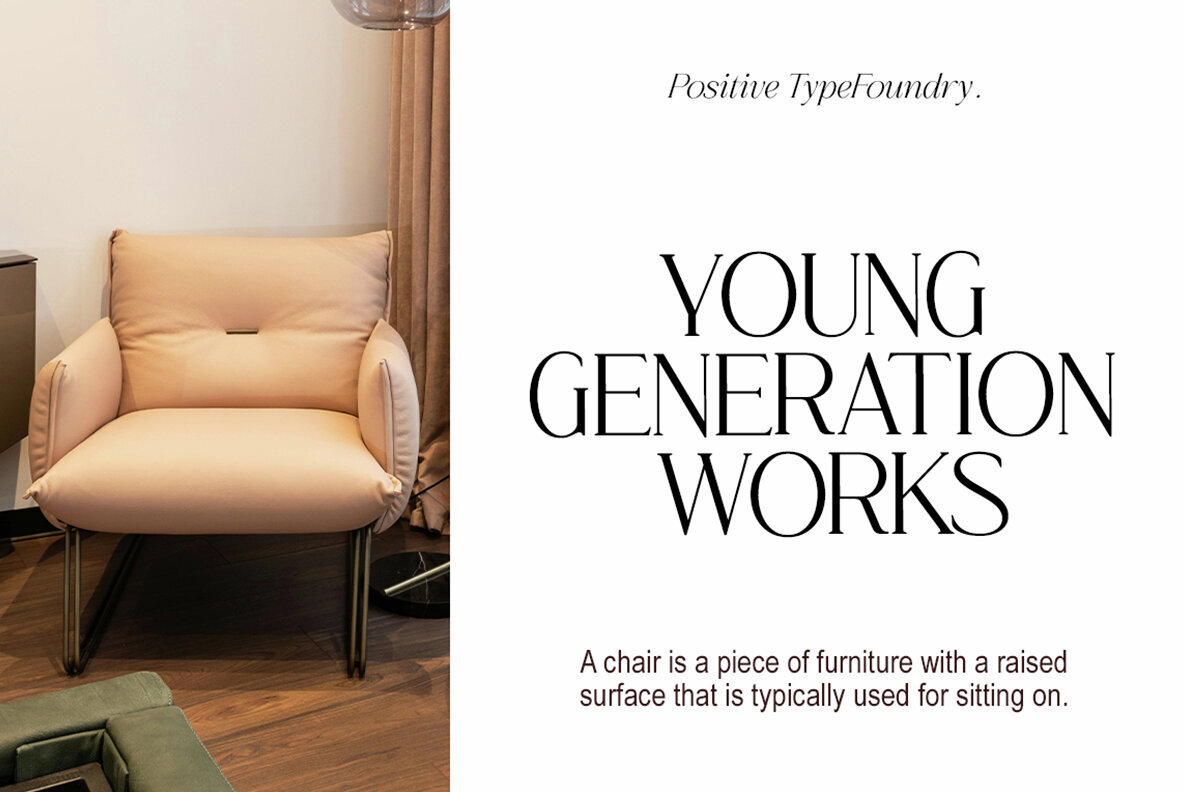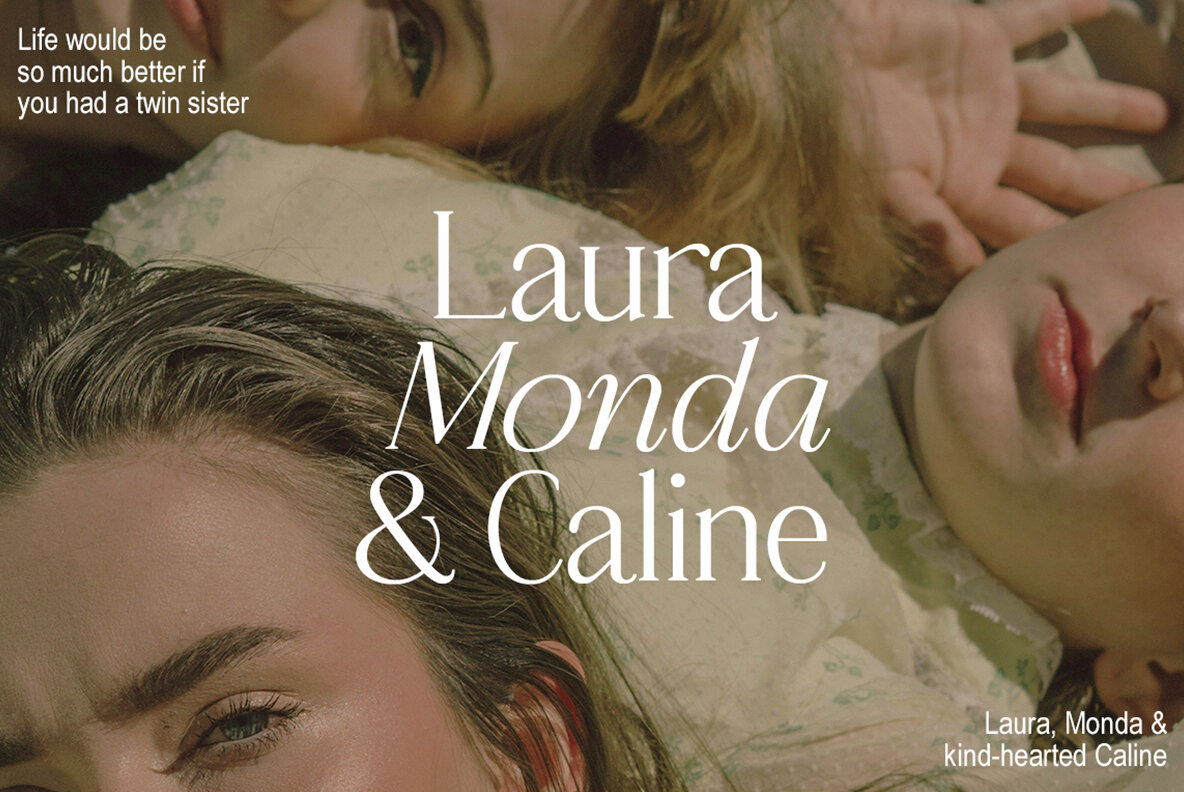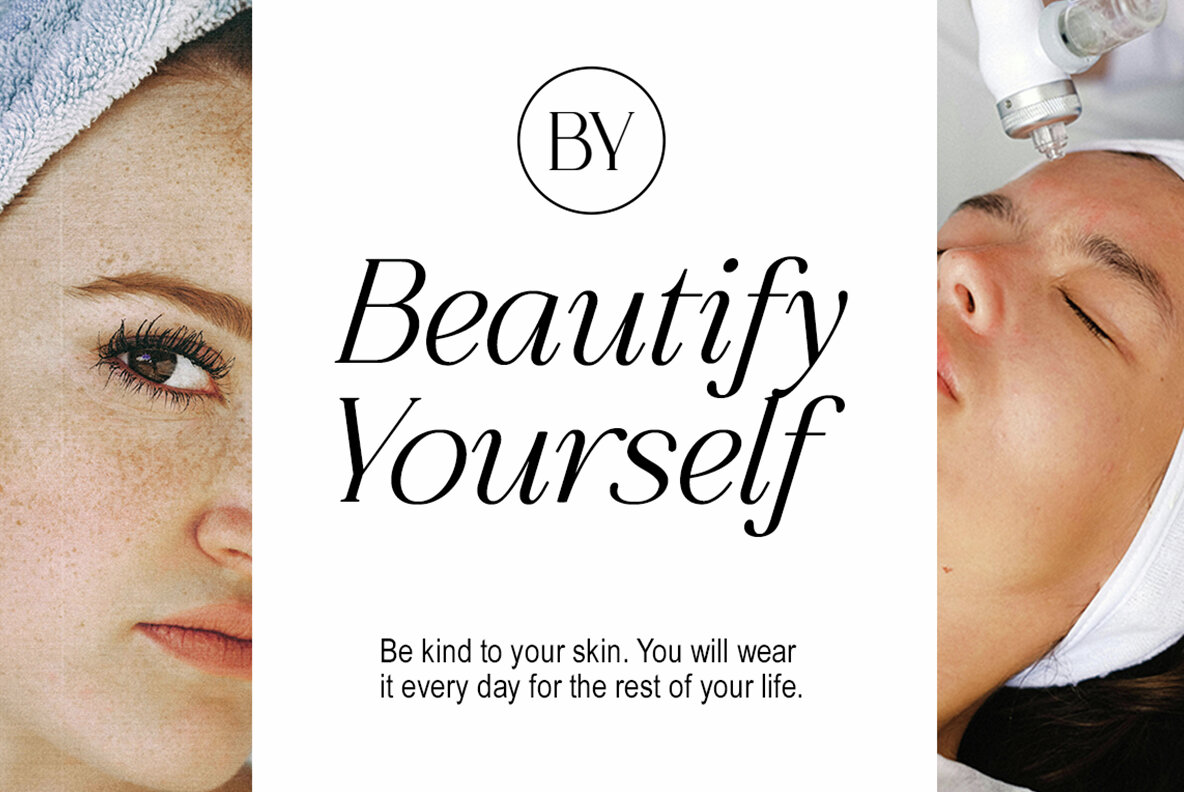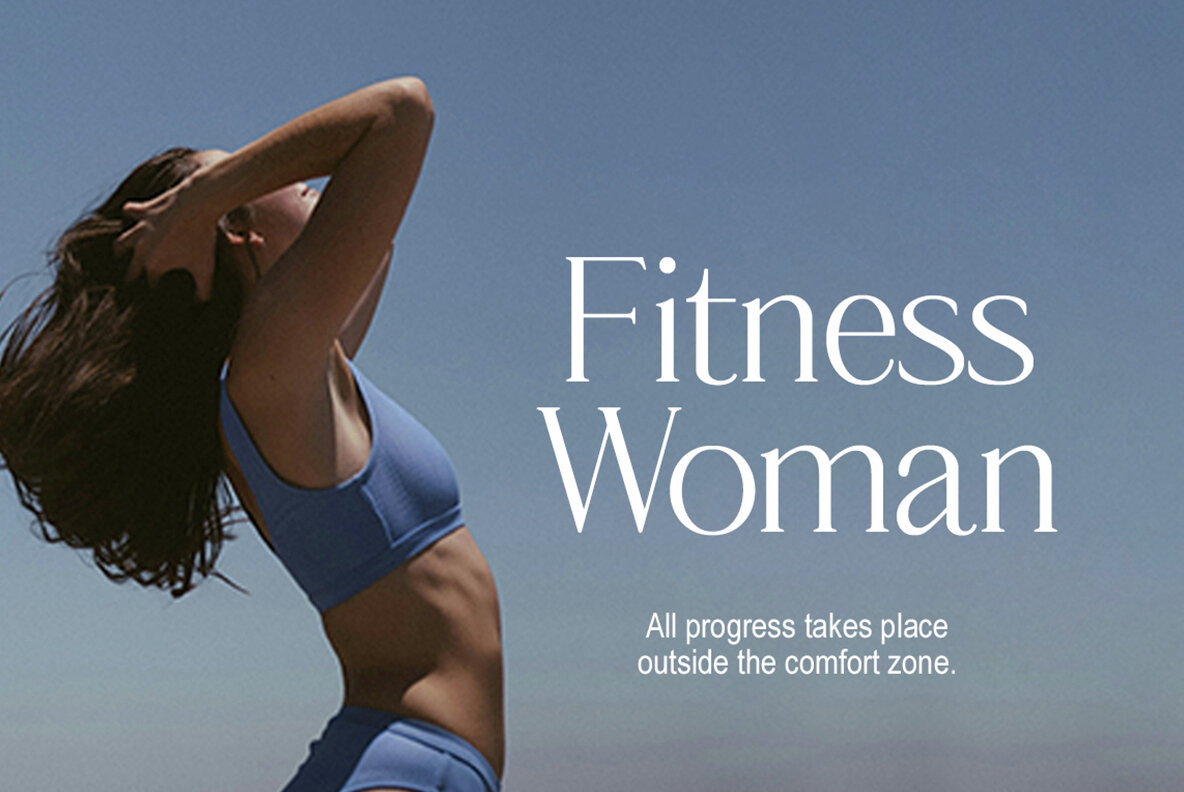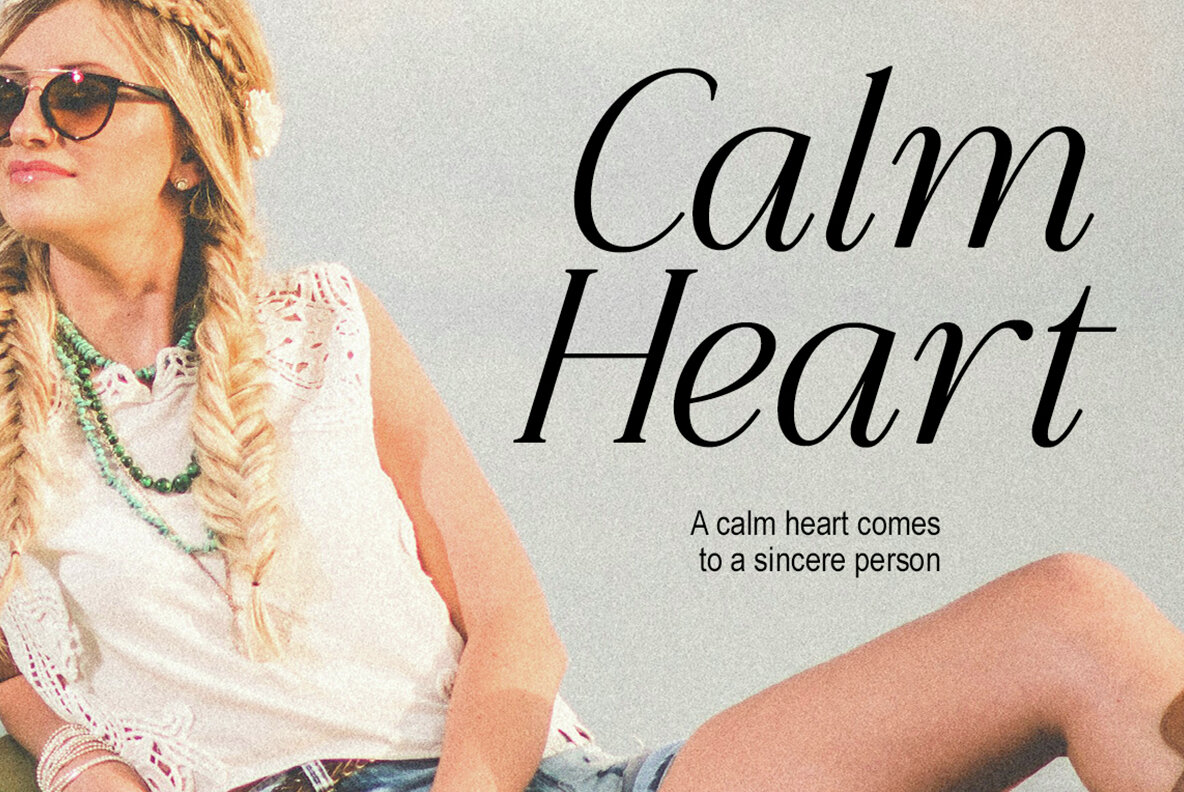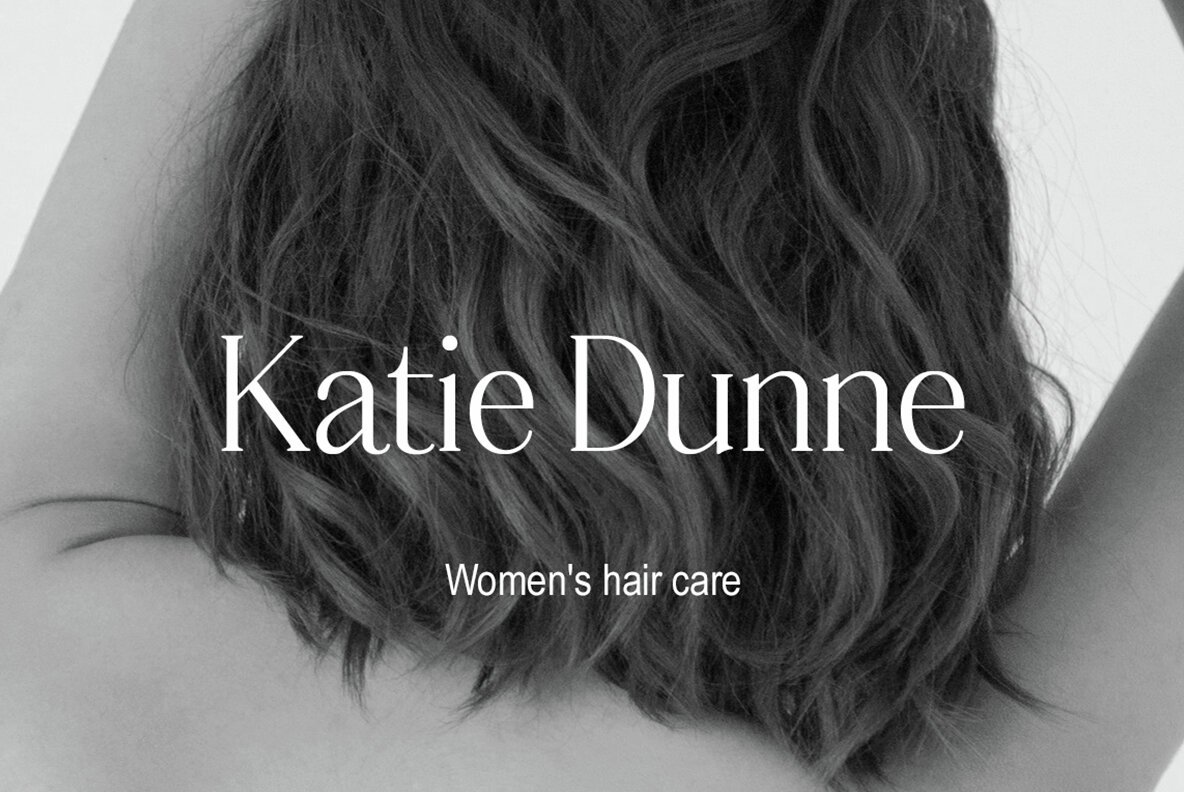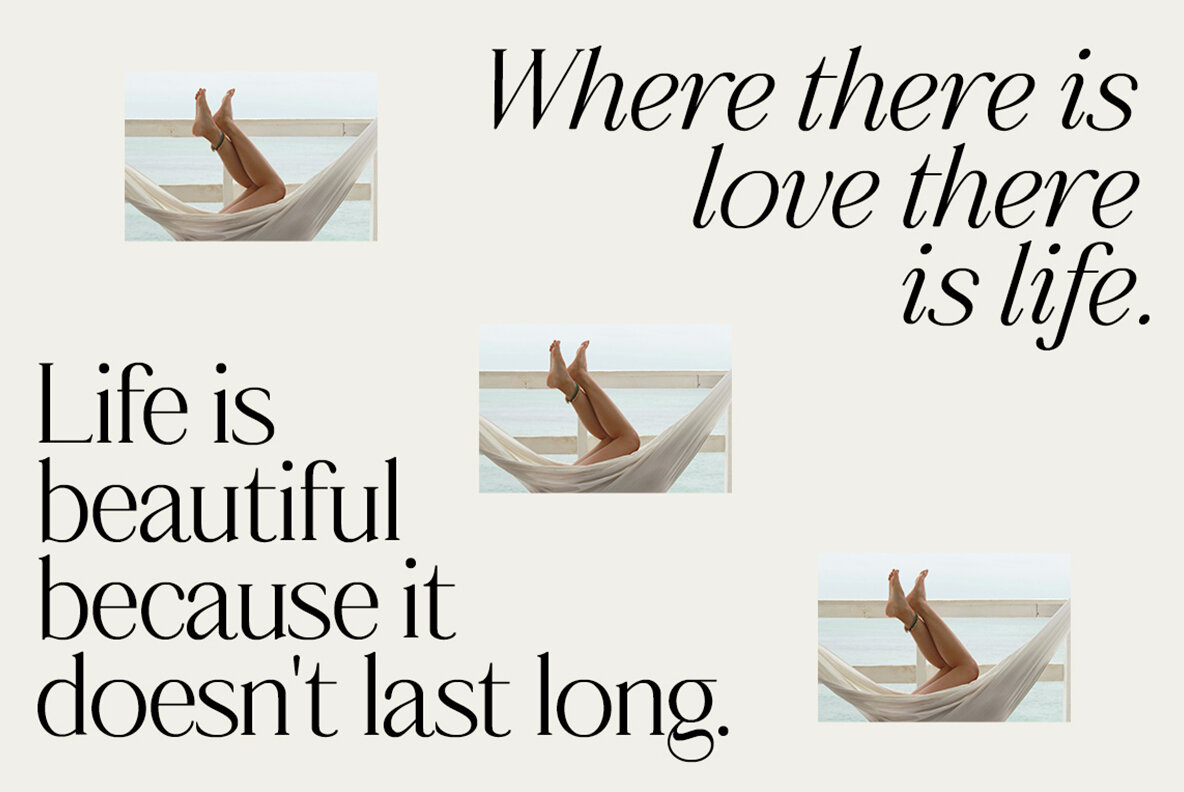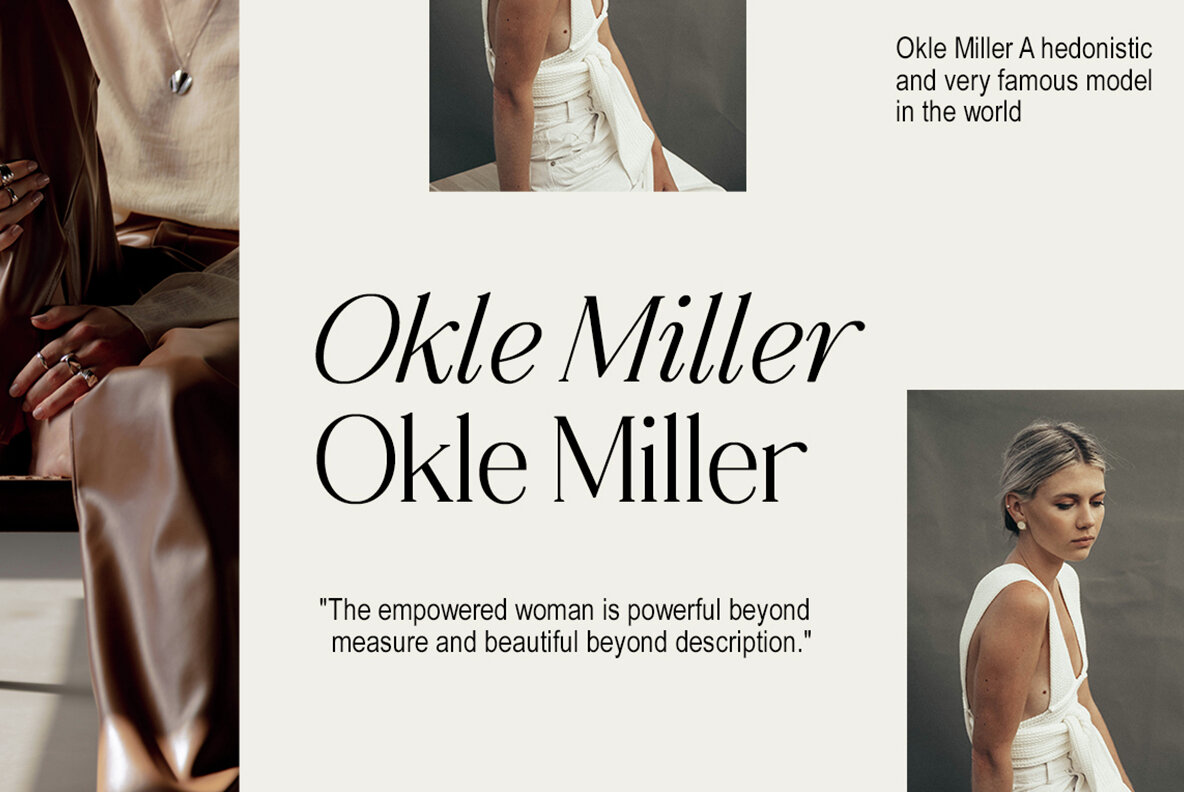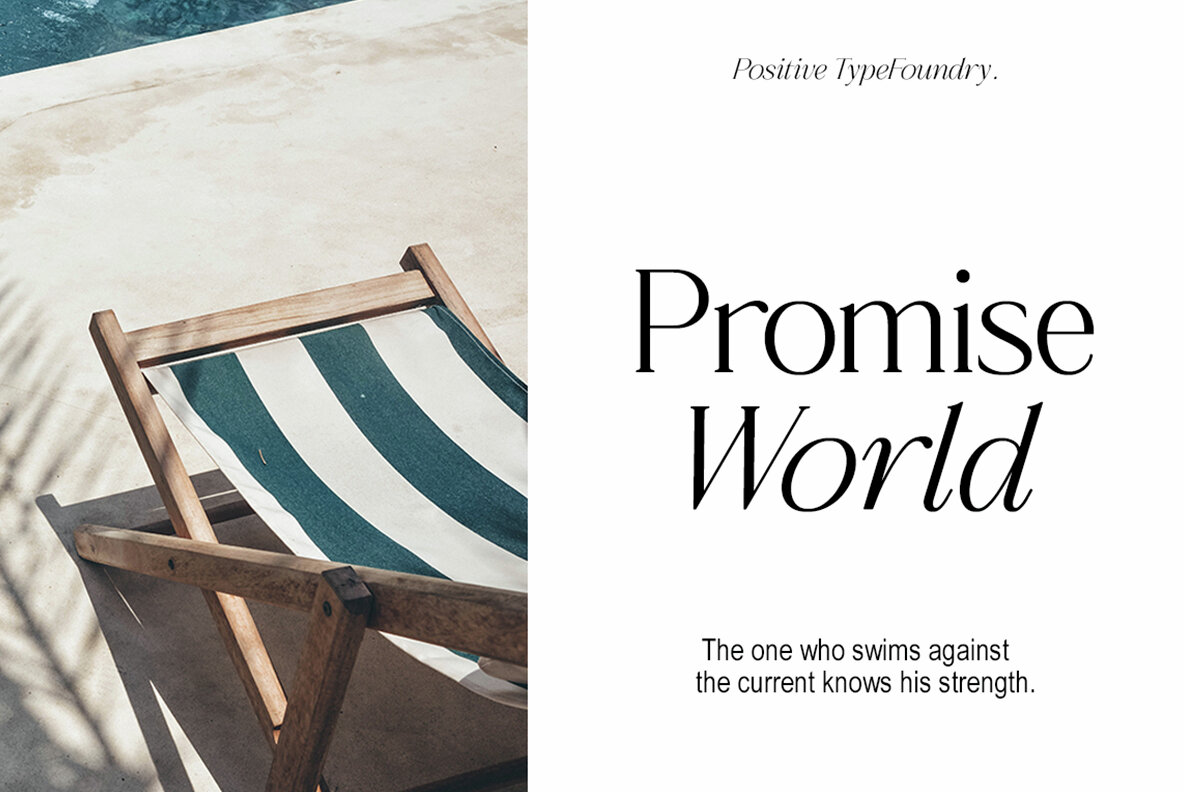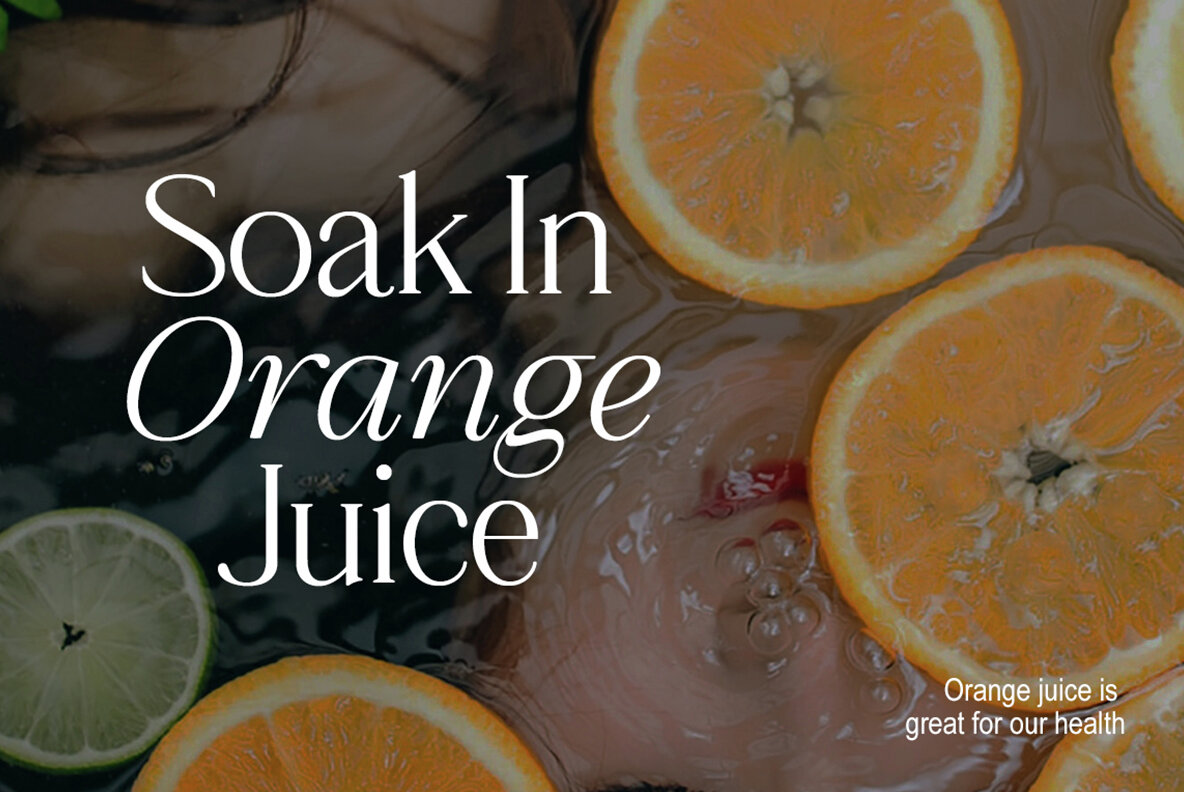
Eleven Twelve Font
Introducing Eleven Twelve, a striking typeface that merges sleek, exotic serif characteristics with meticulously crafted ties. It is perfect for elegant, sophisticated designs. Featuring both Regular and Italic styles, this font offers fine detailing that enhances modern and fashionable brand appeal.
Eleven Twelve includes a full set of uppercase and lowercase letters, numbers, symbols, and supports multiple languages. Additionally, it is PUA encoded, allowing easy access to all glyphs. This versatile font is ideal for branding, editorial work, and any project requiring a refined serif touch.